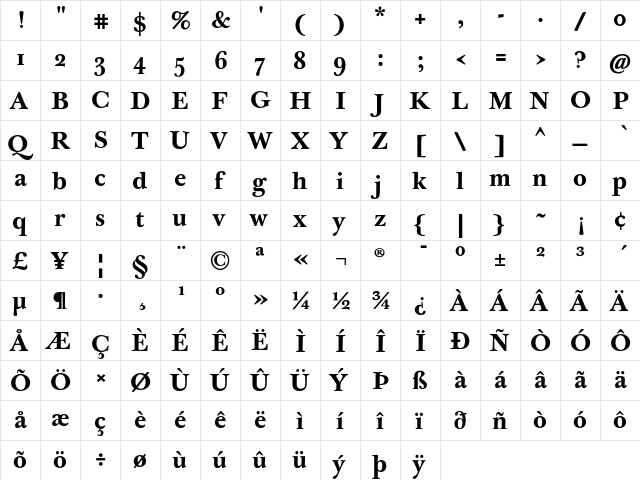
J Baskerville Text Bold
Design Context for J Baskerville Text Typeface
J Baskerville Text offers clean, dependable letterforms without strong stylistic allegiance, making it a practical choice for designers who need flexibility. Its bold stroke weight gives it real presence on the page.